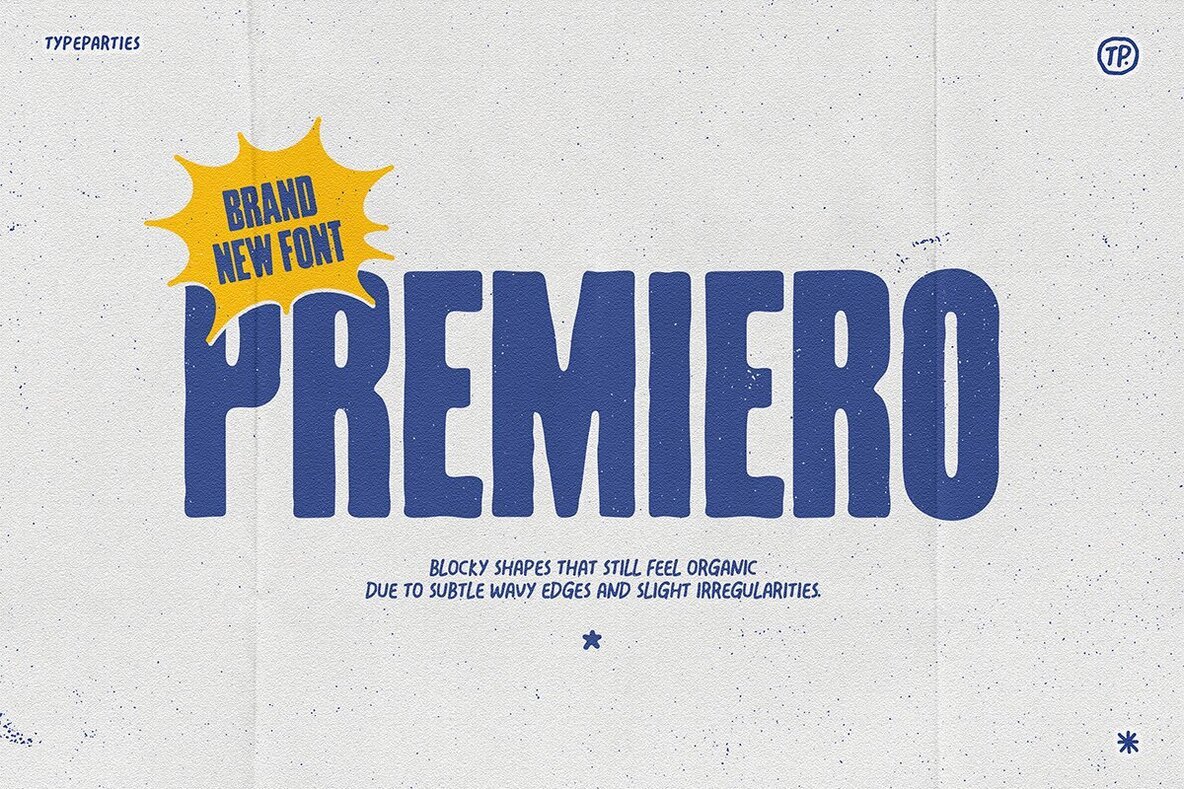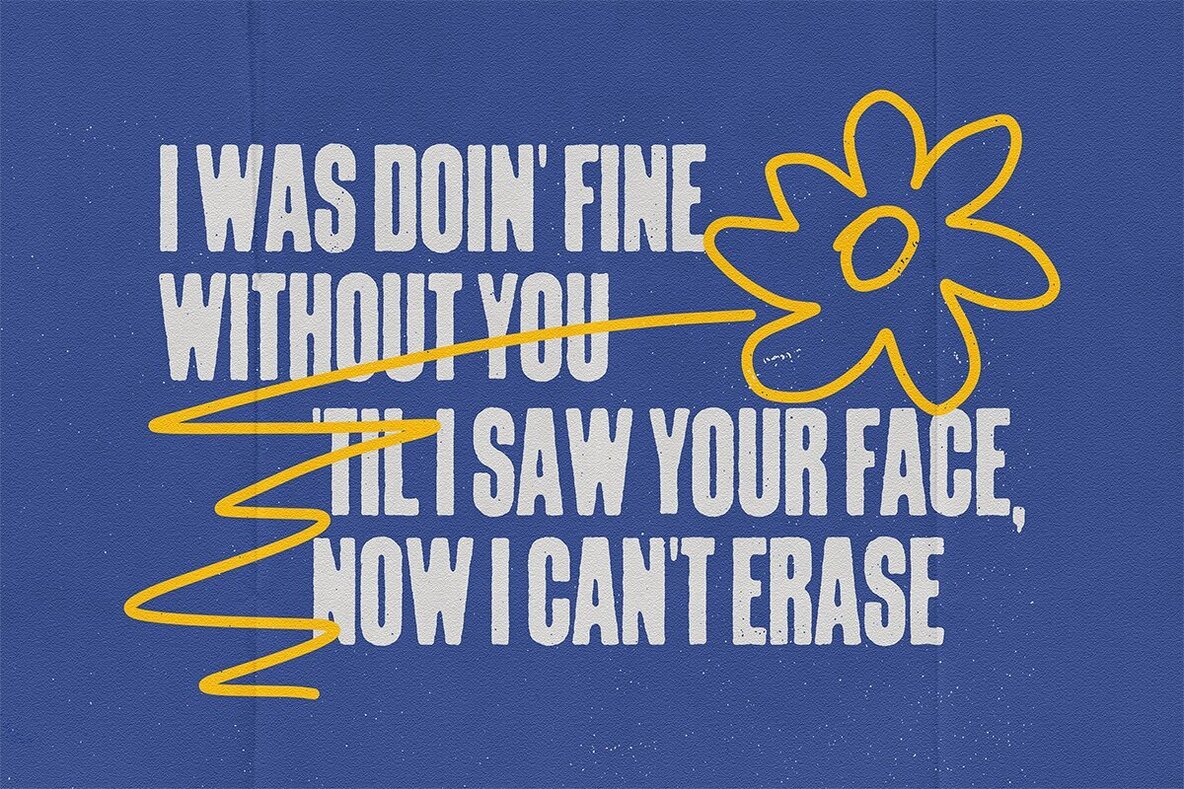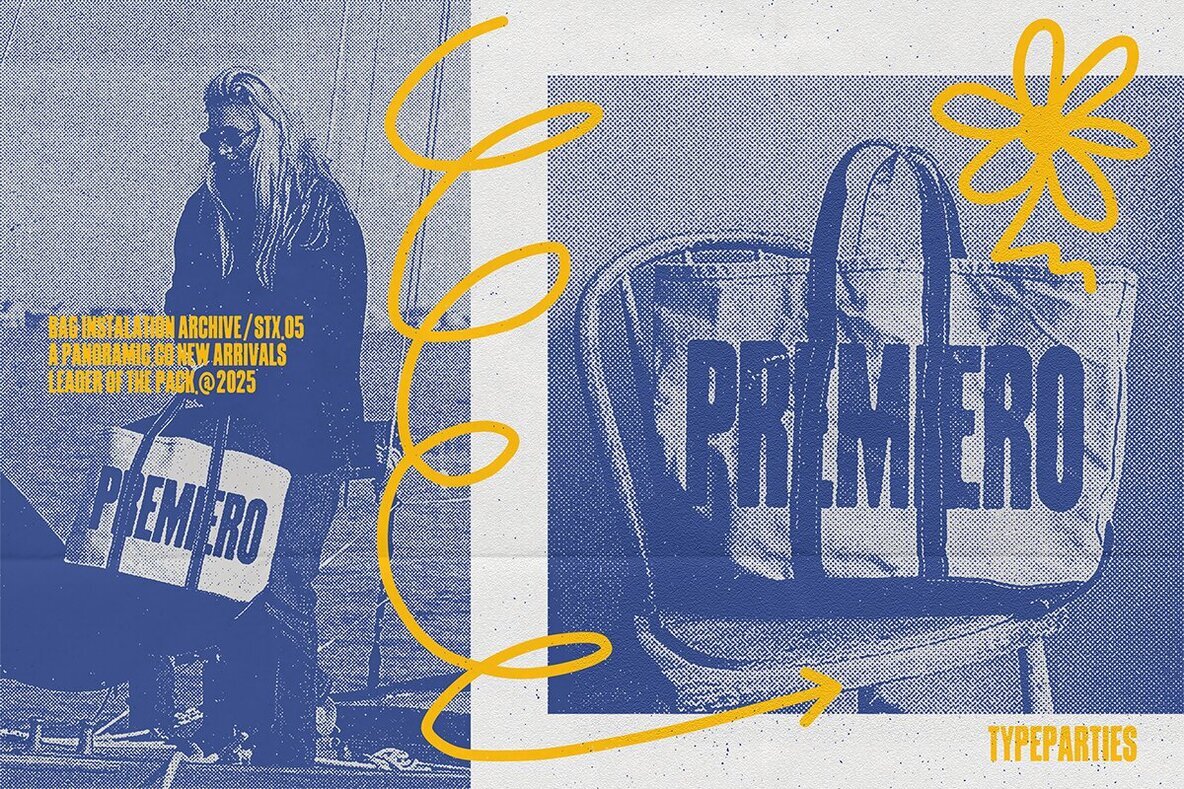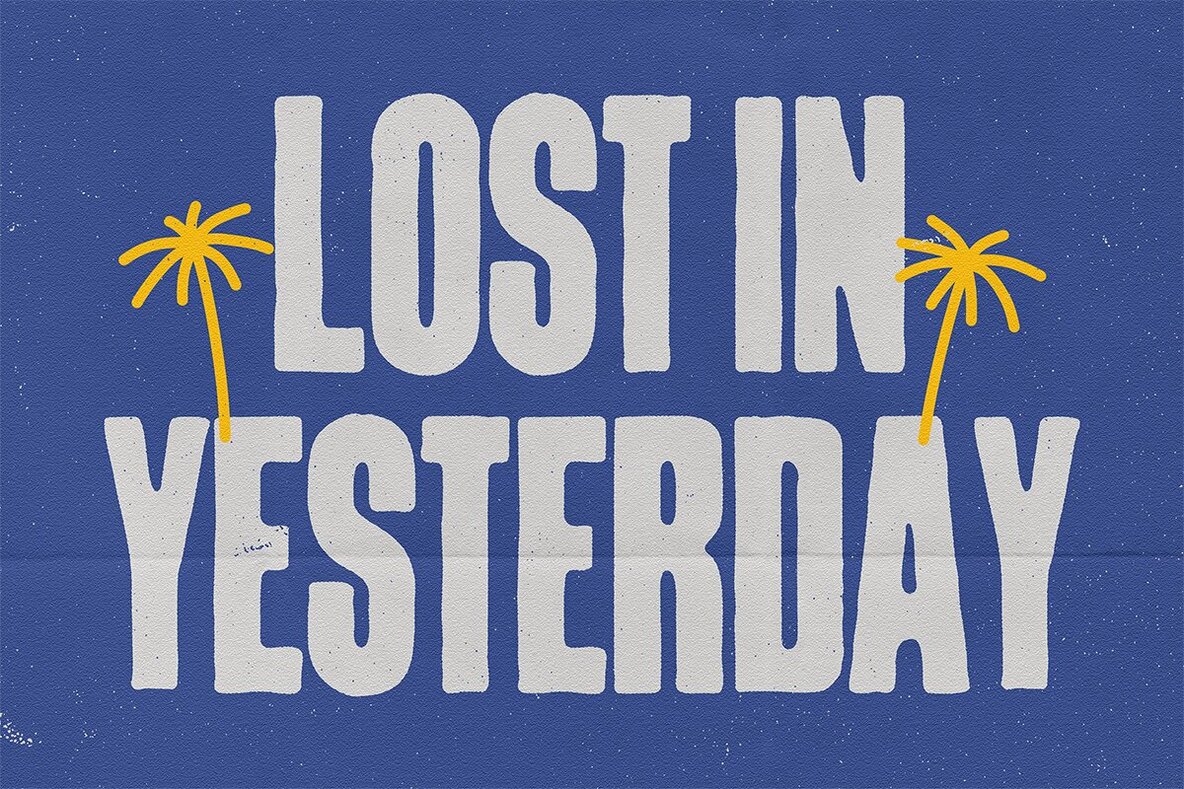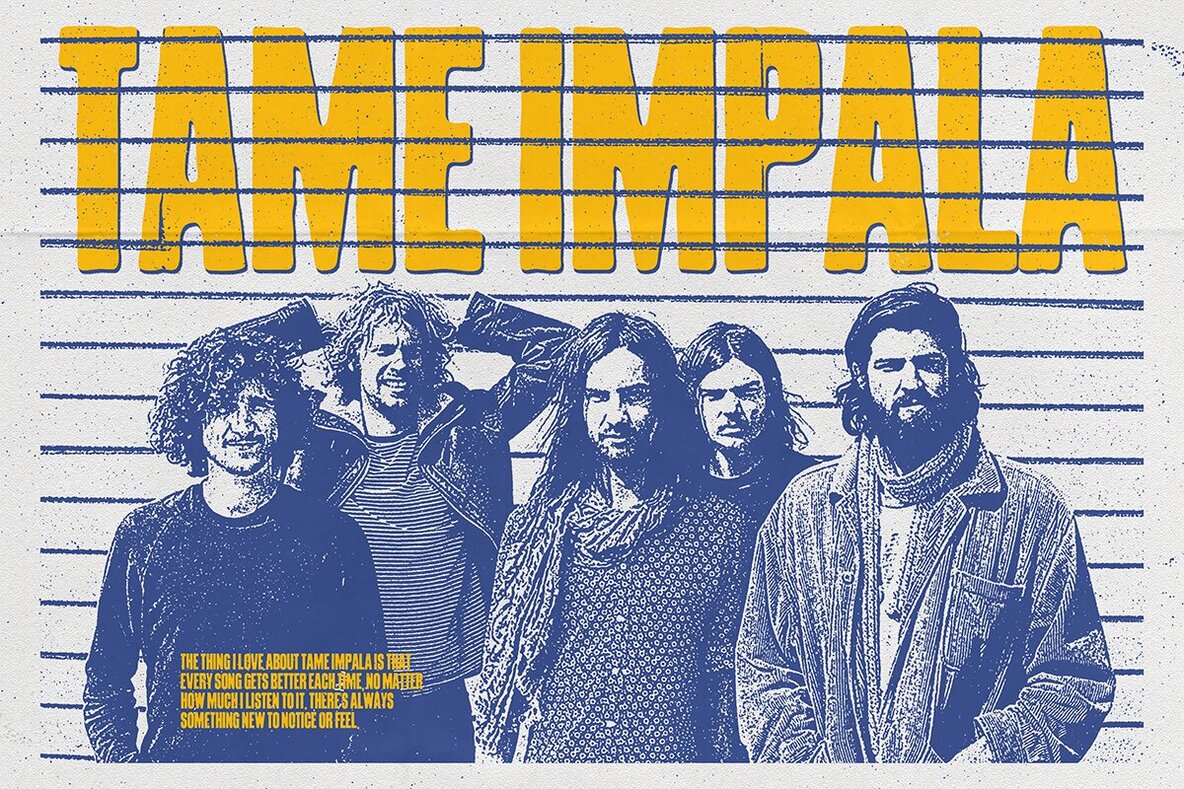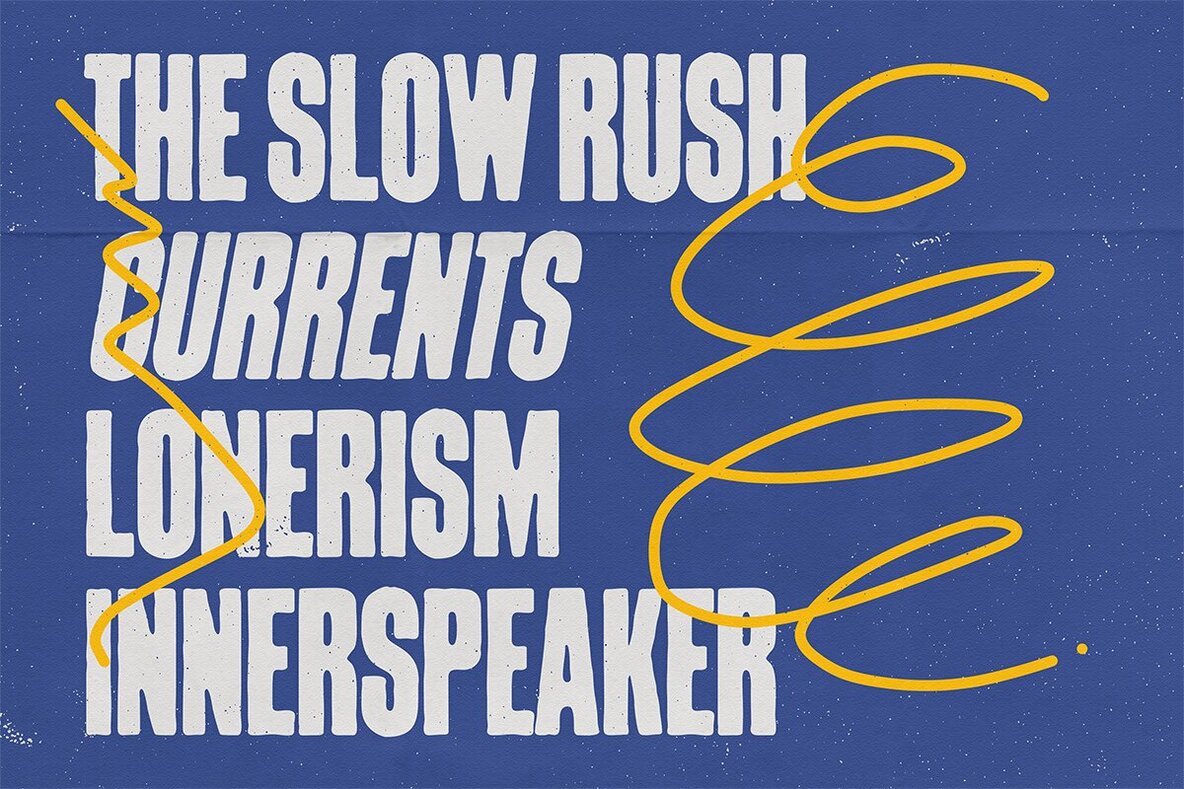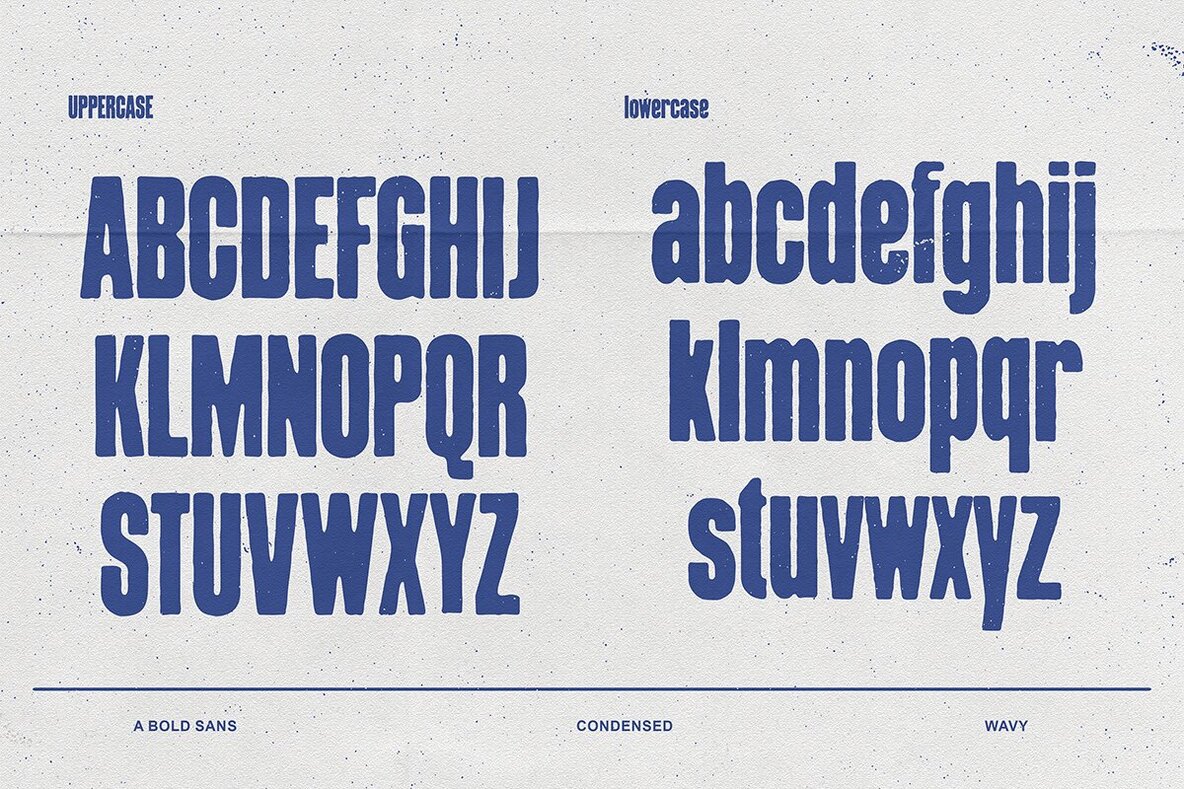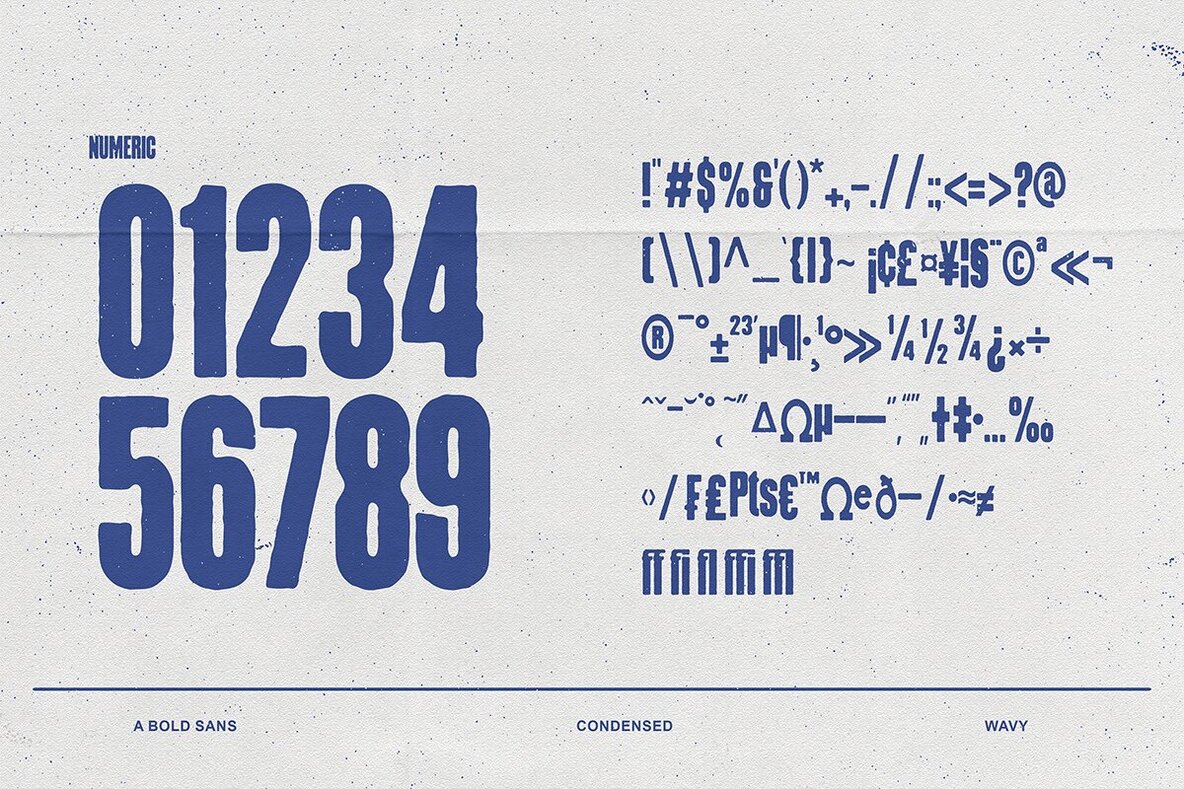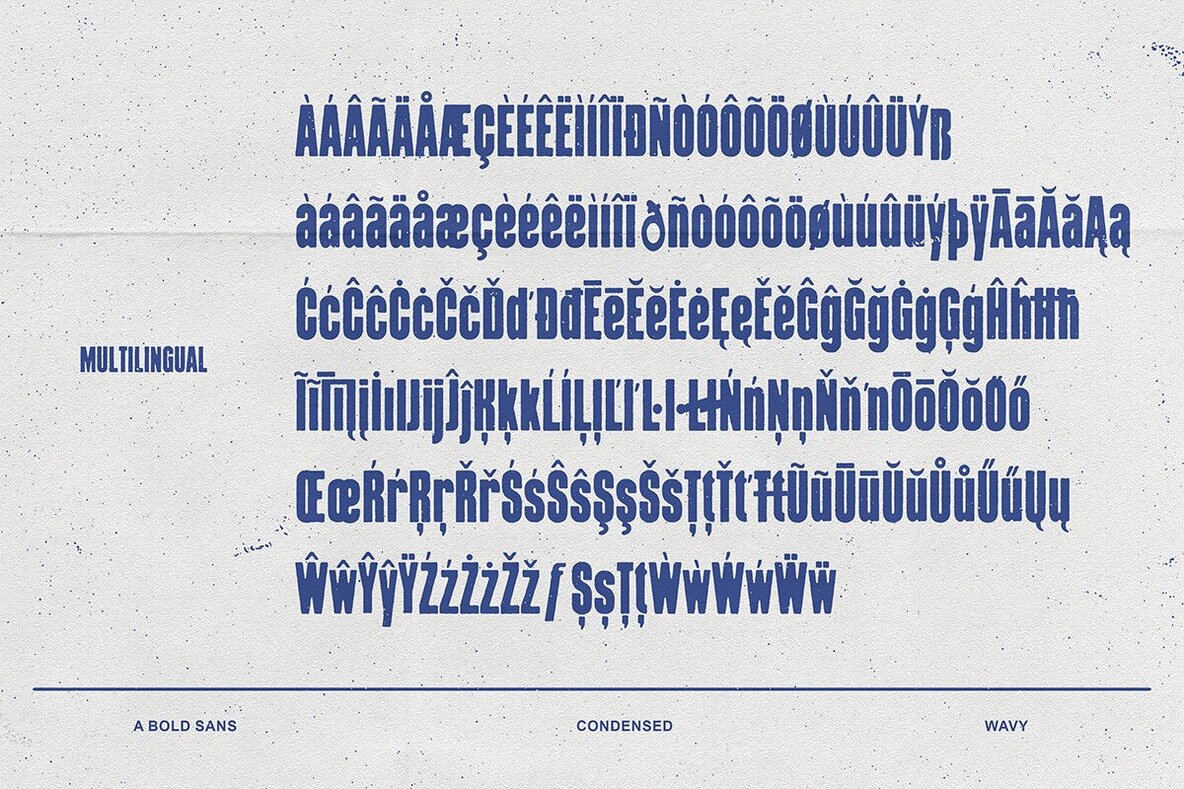
ATP-Premiero Font
ATP Premiero
If you're seeking a typeface that exudes energy and authenticity, this bold, condensed, and playful font makes a compelling choice. Its all-caps design features thick, blocky shapes complemented by subtle wavy edges and slight irregularities, giving it an organic feel. The font's distressed texture—characterized by little speckles and roughness—imbues each letter with a gritty, vintage allure. This makes it particularly suited for projects reminiscent of retro posters, outdoor festivals, or adventure-themed designs. Set in solid white against a deep green background, the font's eye-catching appearance is perfect for making a statement.ATP-Premiero Font: Bold, Condensed, and Playful
Vintage Charm Meets Modern Design